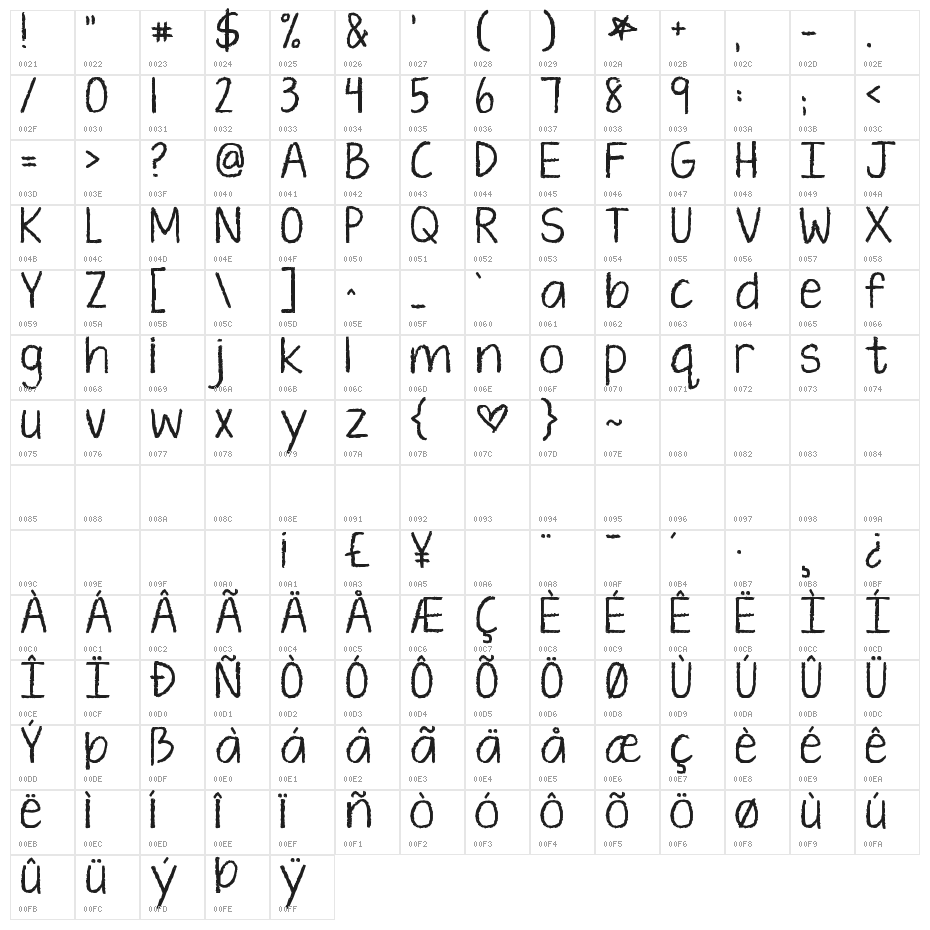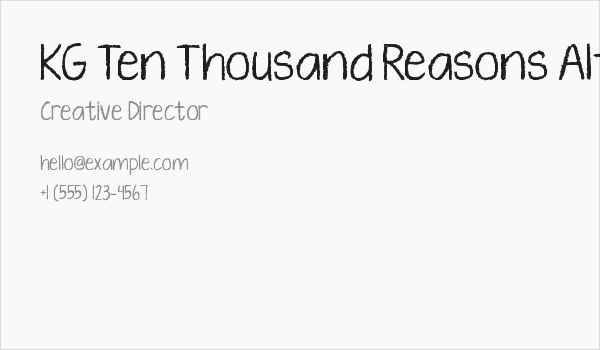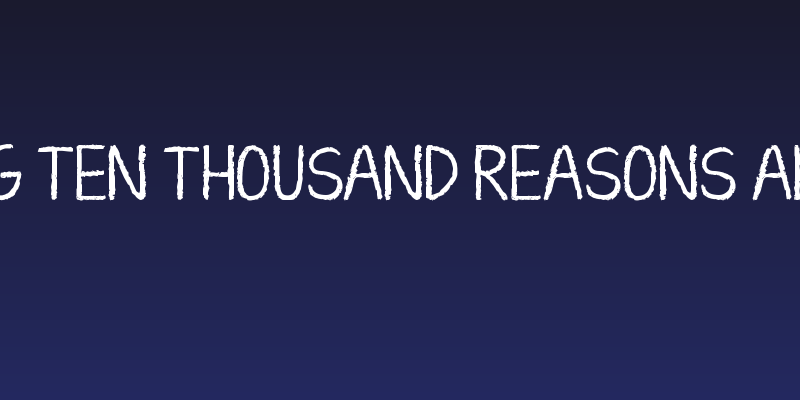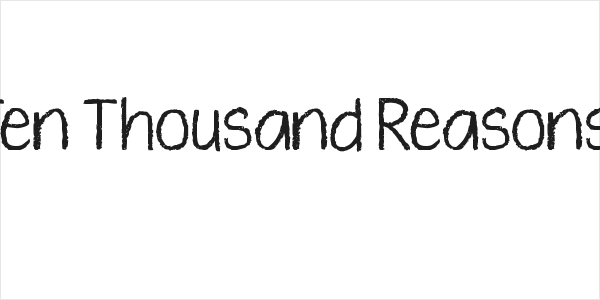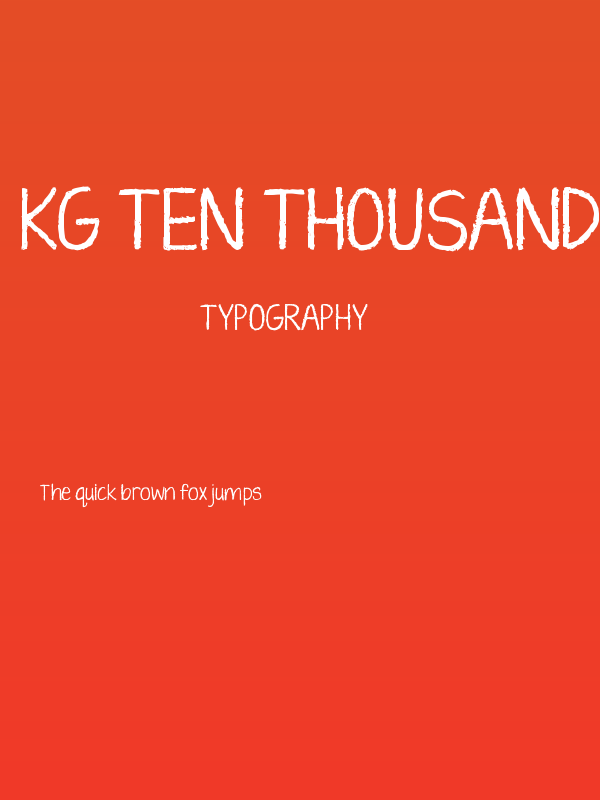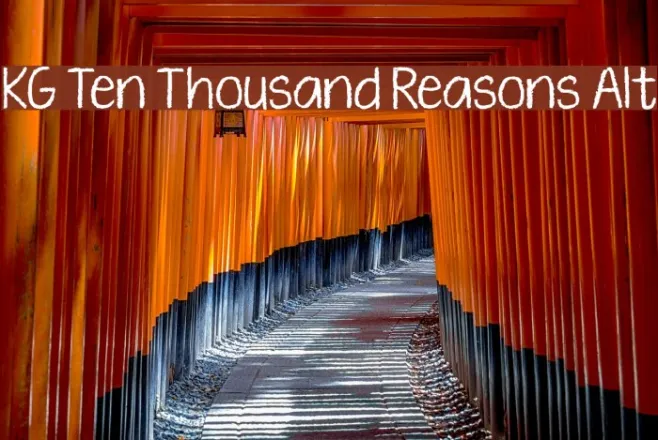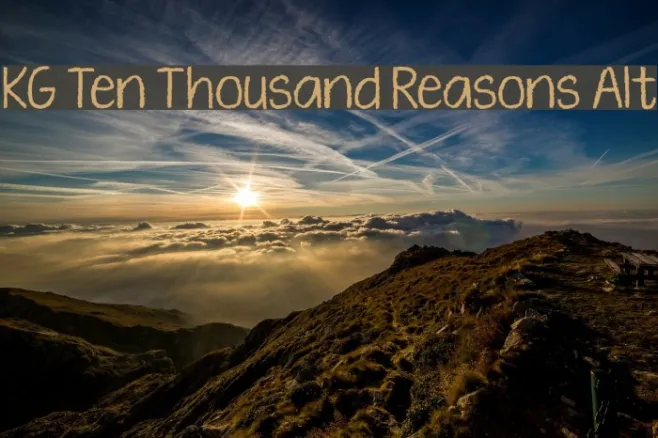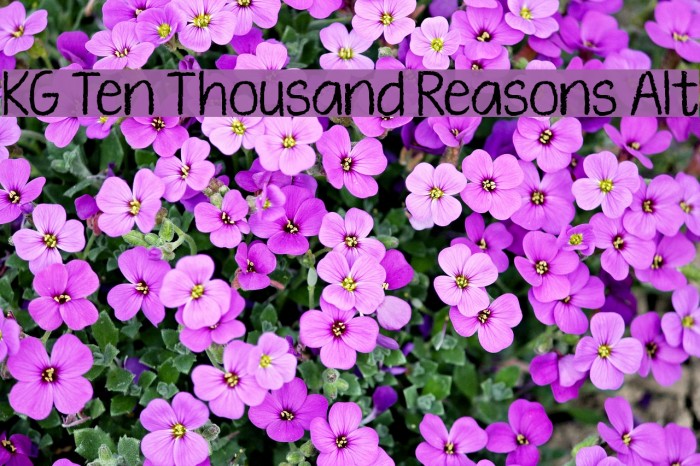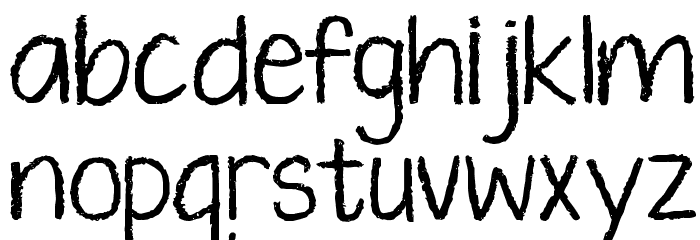
KG Ten Thousand Reasons Alt Font
KG Ten Thousand Reasons Alt Description
This font features a playful and hand-drawn style, characterized by its rough, textured strokes that give it a chalk-like appearance. The letters are slightly irregular, adding to the casual and informal feel. The uppercase and lowercase letters maintain a consistent style, with rounded edges and a slightly uneven baseline, enhancing its handwritten charm. Numbers and special characters follow the same aesthetic, making the font versatile for creative projects. Its unique texture and informal style make it suitable for designs that require a personal touch.
| Overall Style | Casual, Playful |
| Use Case | Headlines, Informal Text, Creative Projects |
| Proposed Projects | Ideal for children's book covers, playful posters, greeting cards, and educational materials. |